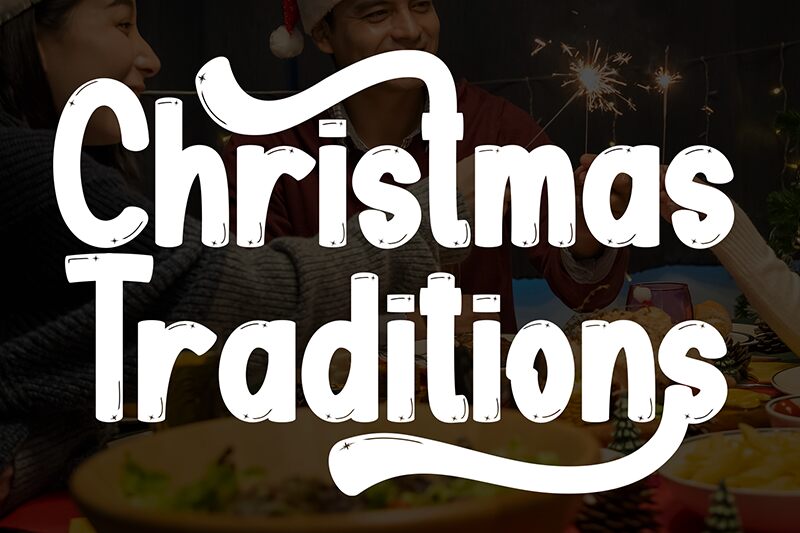
Christmas Traditions
Christmas Traditions font by Scratchones is a condensed display typeface with vintage aesthetics and a distressed texture. Featuring an informal vibe and strong personality, this font evokes nostalgia and warmth, making it particularly suitable for various classic-themed or retro projects.